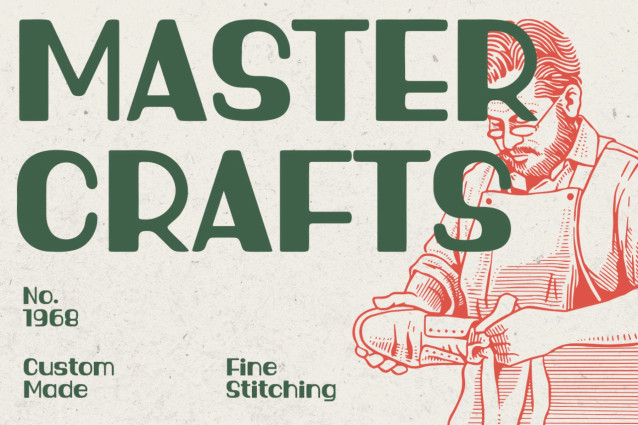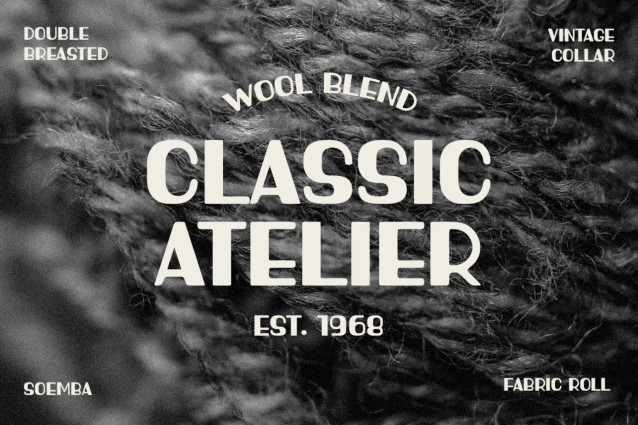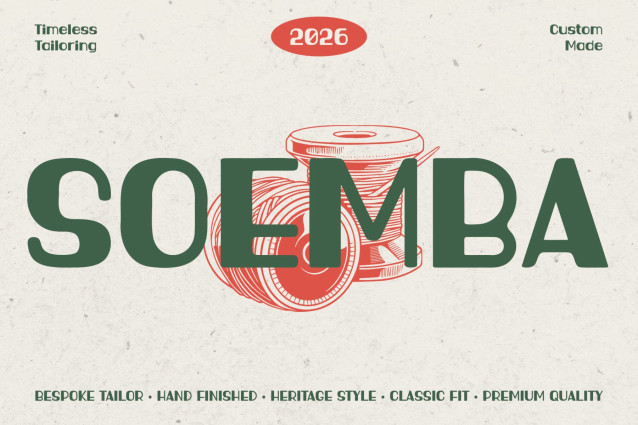
SOEMBA Font
SOEMBA – Classic Heritage Display Font for Authentic Vintage Branding
Vintage Font SOEMBA captures the timeless charm of handcrafted craftsmanship. It features bold vintage letterforms, balanced proportions, and refined retro details. Moreover, its sturdy design creates a strong visual presence without losing readability. Every character reflects authentic heritage style with a clean, professional finish. As a result, your branding feels memorable, trustworthy, and full of classic character.